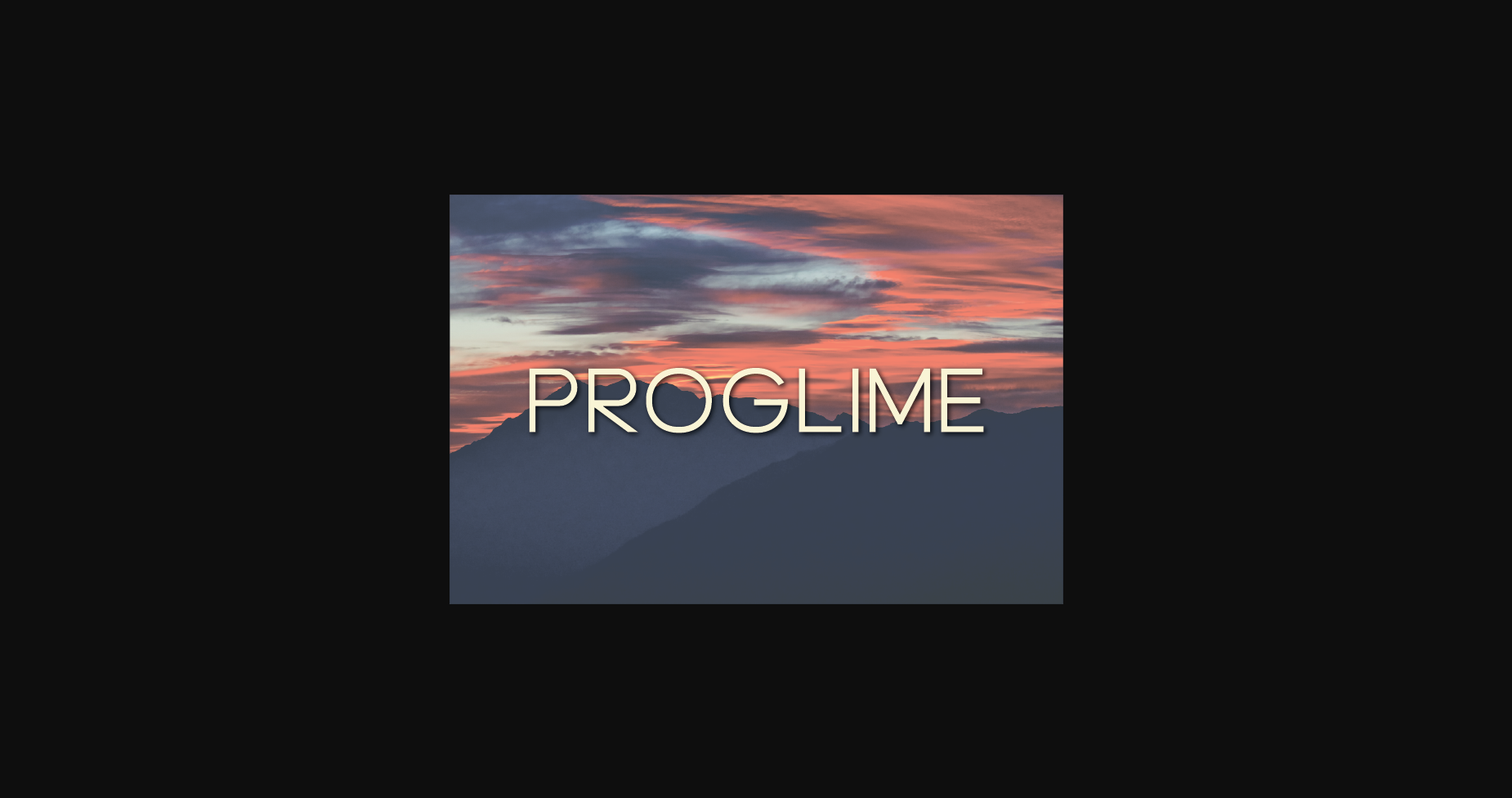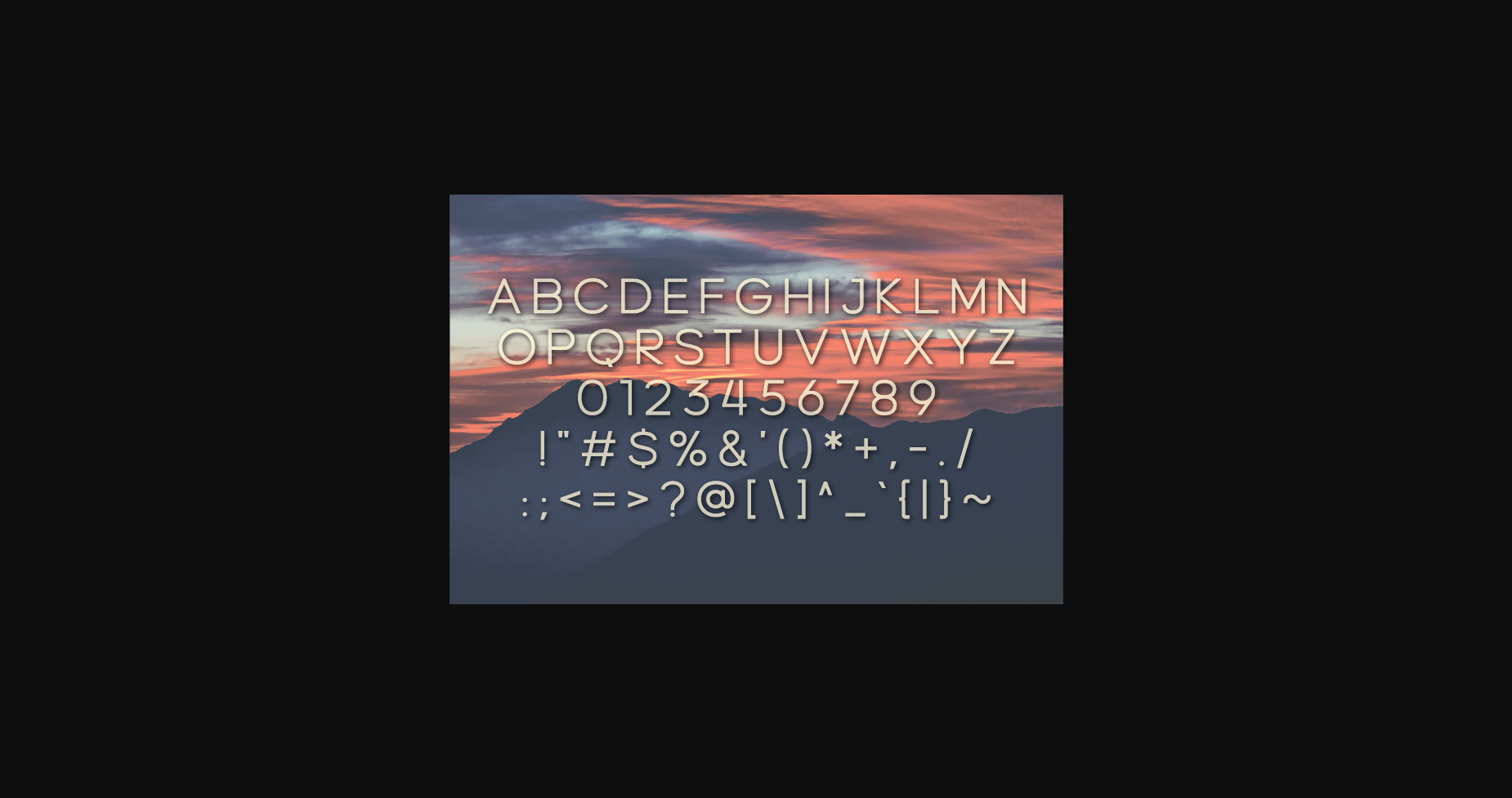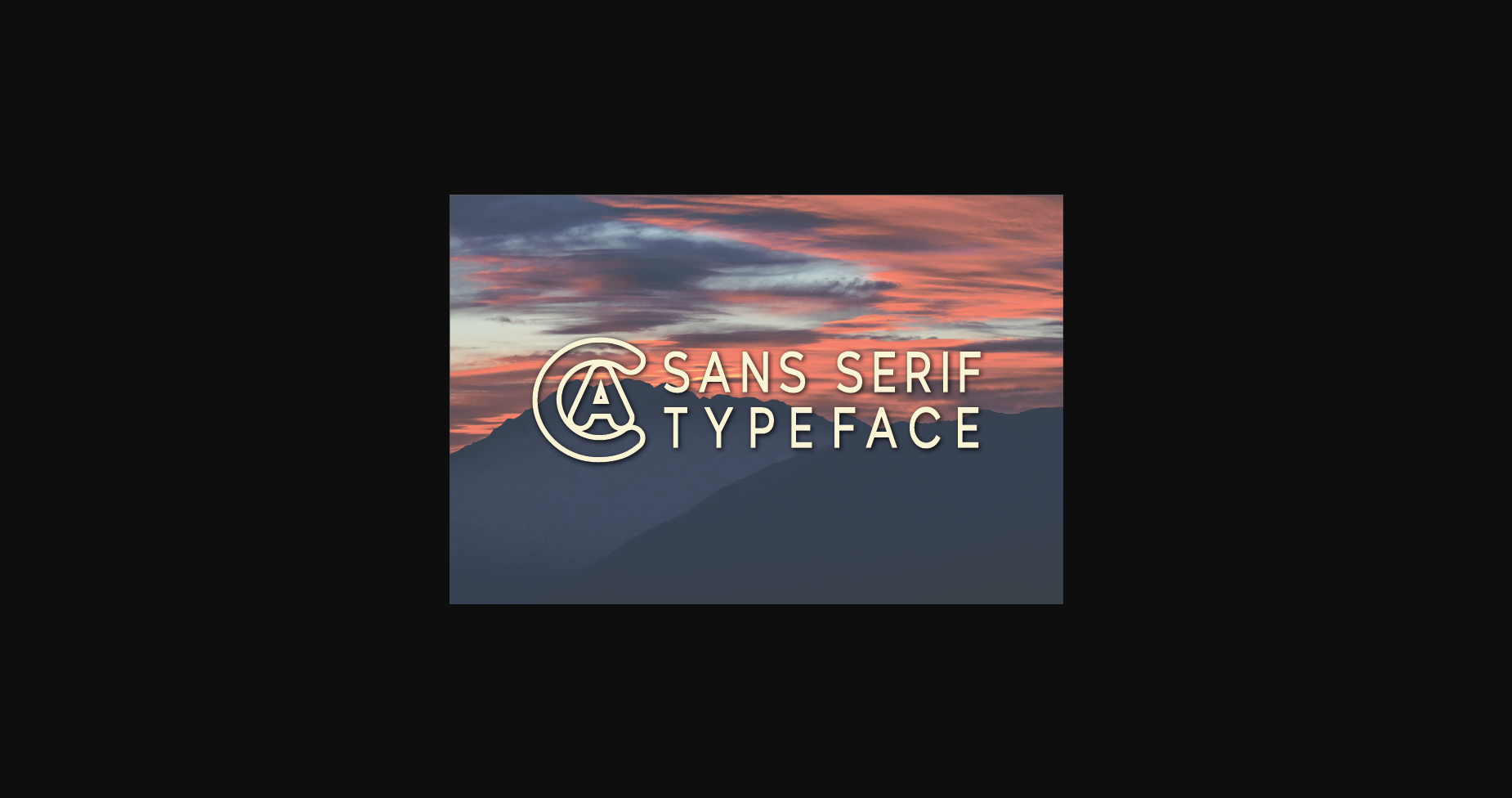
HomeSans Serif FontsProglime Font Sans Serif Fonts Proglime Font FacebookXPinterestWhatsApp 1 of 5 ... Proglime Font Poster 2... Proglime Font Poster 3... Proglime Font Poster 4... Proglime Font Poster 5... About Proglime Font Proglime is a clean and simple sans serif font. This font is suitable for designs such as t-shirts, sportswear, logos, advertisements, clothing, and more. DOWNLOAD NOW People also explored Shela Sweet Font Bullenita Font Oxblood Black Bella Canvas 3001 Mockup Snow Winter Font Meria Lovely Font The Brocky Font The Aprilio Super Font Grenzoo Font Boddrex Font 425 0 TagsProglime Font Previous articleRotato FontNext articleCareful Font LEAVE A REPLY Cancel reply Comment: Please enter your comment! Name:* Please enter your name here Email:* You have entered an incorrect email address! Please enter your email address here Website: Save my name, email, and website in this browser for the next time I comment. Personal Use Free Black Personal Use Free Read more about this font Romansya Personal Use Free Read more about this font Strasua Personal Use Free Read more about this font Nikoleta Personal Use Free Read more about this font BLOG 5 Fonts That Will Dominate Design Trends in 2026 5 Fonts for 2026 That Will Dominate Design Trends Typography plays a critical role in visual communication, and as we look ahead to 2026, it’s... Elegant Wedding Invitation Fonts – Handwritten & Script Fonts Best Fonts for YouTube Videos: Make Your Thumbnails Stand Out The 10 Best Handwriting Fonts to Add Personality to Your Designs